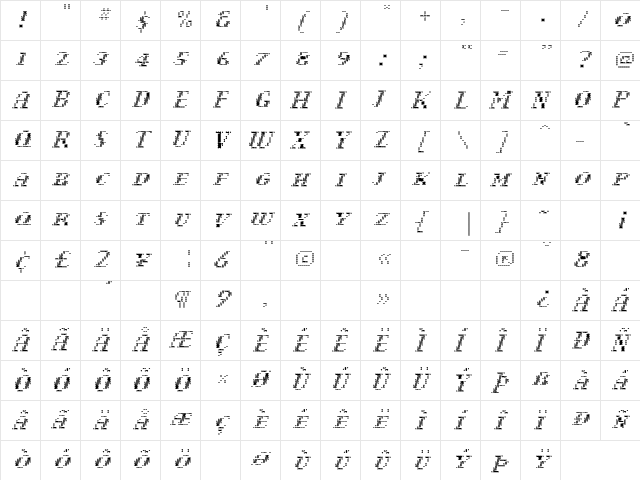
Narly-Light Light
Design Context for Narly-Light Typeface
Narly-Light is a composed and adaptable typeface that performs quietly and consistently across a wide range of design contexts. The delicate stroke weight brings airiness and refinement to layouts.